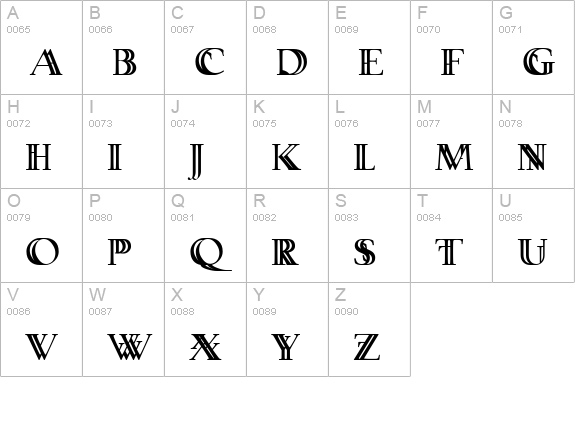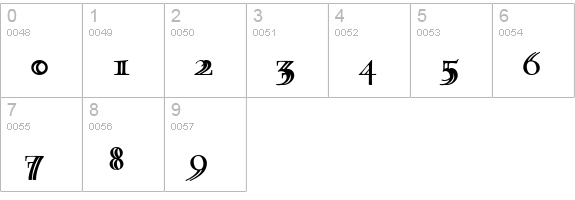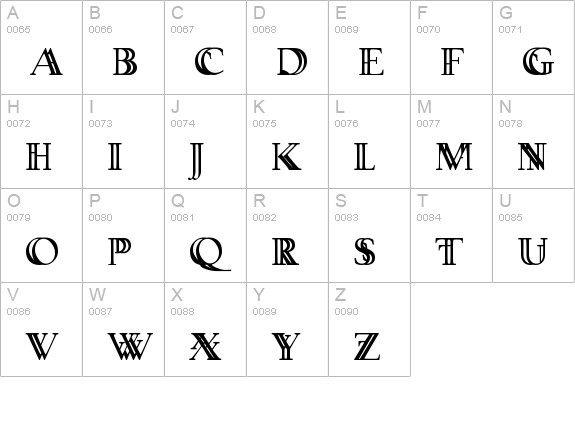
TaskDouble Font Details
TaskDouble font is a modern and versatile typeface that brings a touch of elegance to any design project. With its clean lines and stylish appearance, TaskDouble is perfect for a wide range of applications, from branding and packaging to social media graphics and website design. This font features a unique double-line style that adds a contemporary flair to your text. The best part? TaskDouble font is available for free download at FontsMarket.com, making it accessible to designers and creatives looking to elevate their work without breaking the bank. Whether you're working on a personal project or a client's campaign, TaskDouble font is sure to make a lasting impression with its sleek and sophisticated aesthetic. Download TaskDouble today and add a touch of modernity to your next design endeavor.